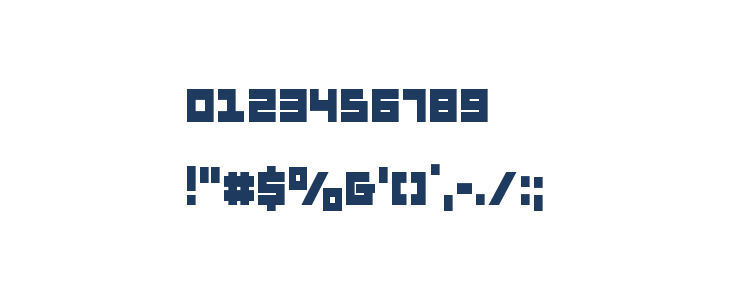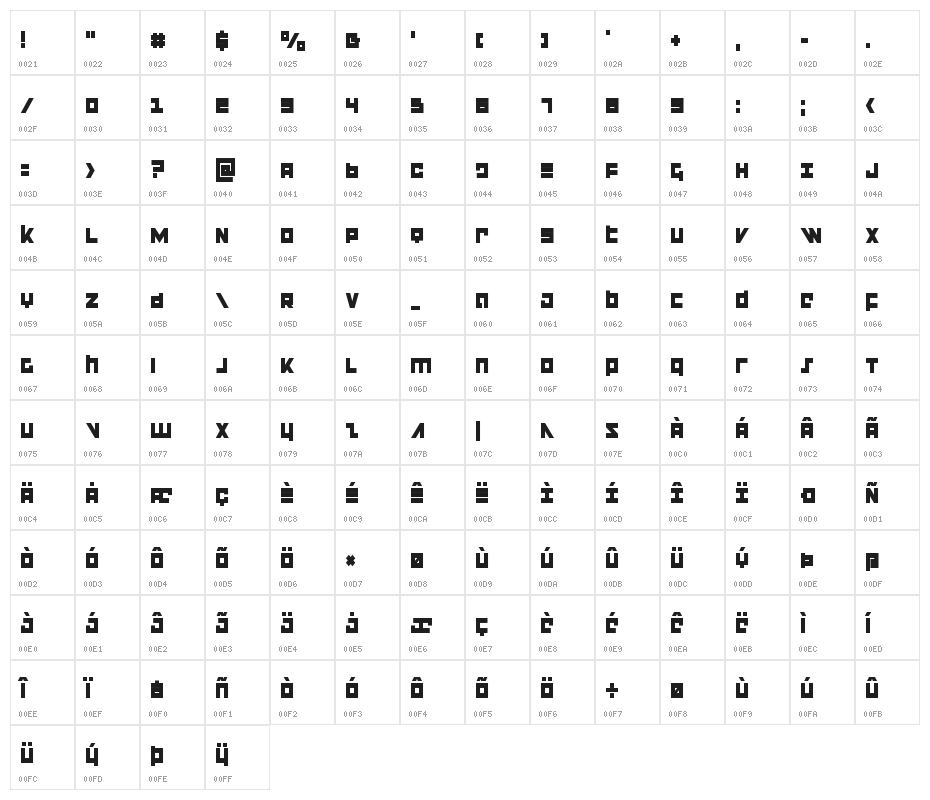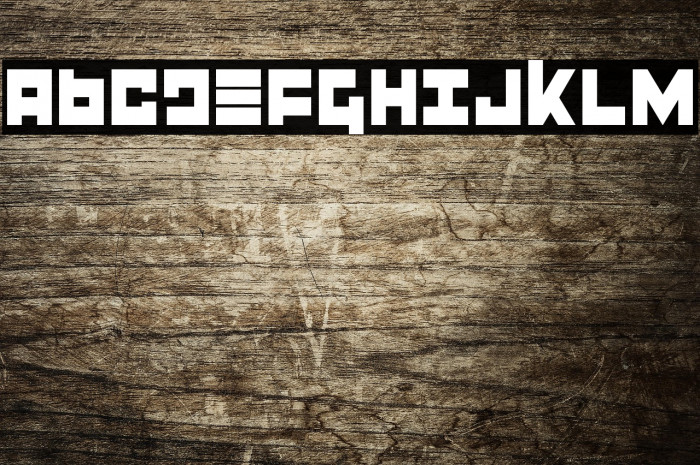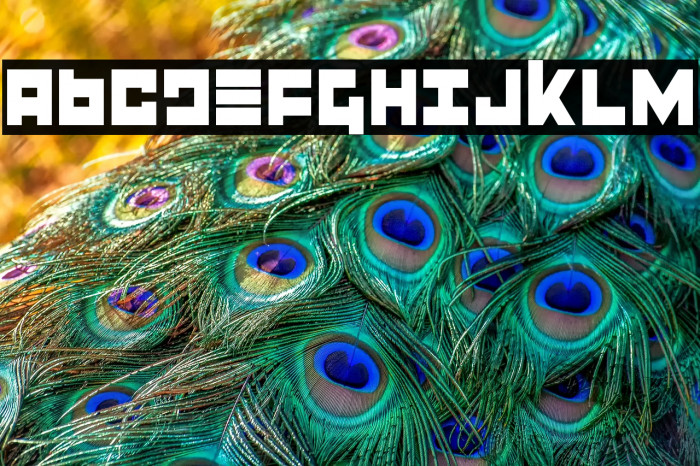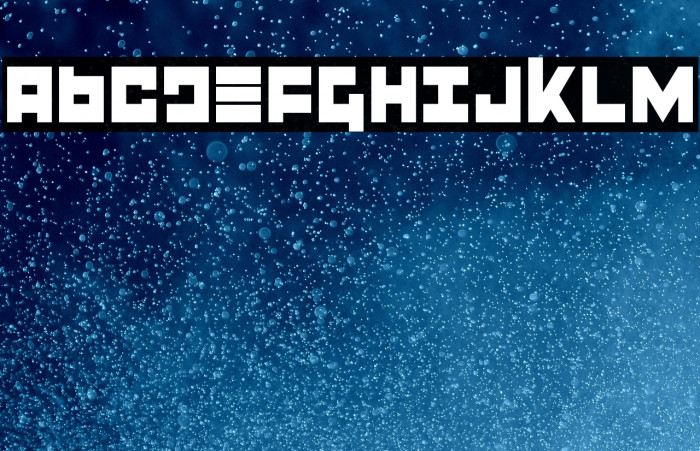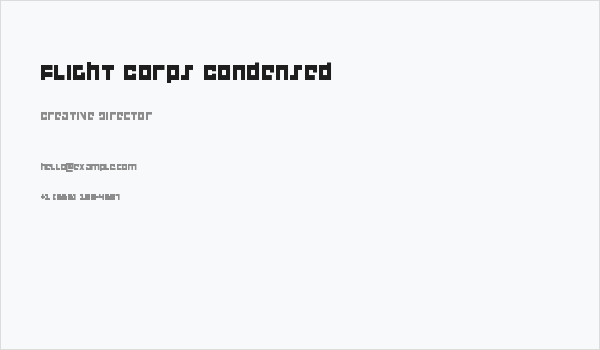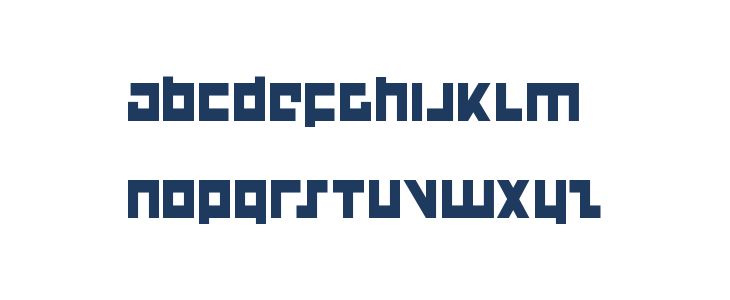
Flight Corps Condensed Font
Flight Corps Condensed Description
This font exhibits a bold, geometric style with a distinctly futuristic and industrial feel. The characters are constructed with sharp angles and straight lines, creating a sense of precision and strength. The uppercase and lowercase letters maintain a consistent height, contributing to a uniform appearance. The numbers and special characters follow the same design principles, ensuring cohesion across all glyphs. The condensed nature of the font allows for efficient use of space, making it suitable for applications where space is limited but impact is desired.
| Proposed Projects | Ideal for use in technology branding, video game titles, sci-fi movie posters, and industrial-themed graphic designs. |